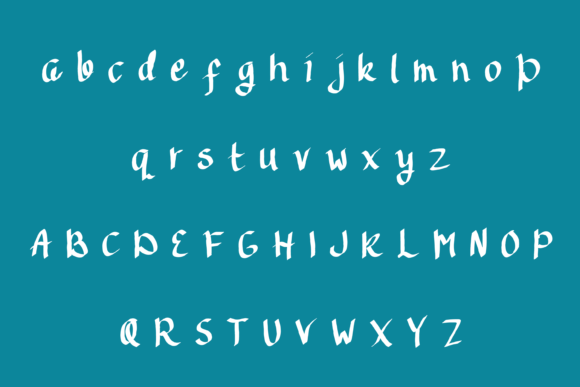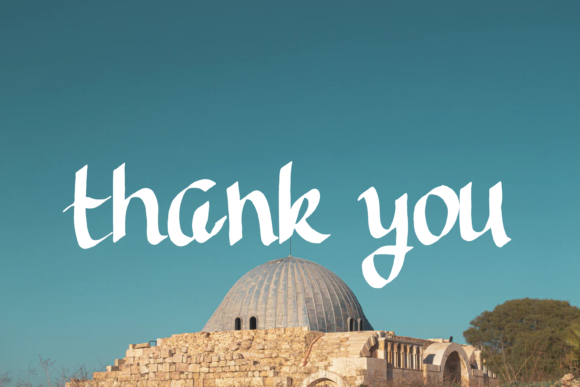
Have you ever stared at a blank page, waiting for inspiration to strike? You know, that moment when everything clicks, and your design begins to take shape? For many designers, it’s a feeling like no other. It’s a rush of excitement, a sense of accomplishment, and a desire to bring your vision to life.
One font that can help you achieve this moment is the Khalifa Font, a modern display font that’s both readable and stylish. With its smooth curves and bold design, it’s perfect for fashion branding or editorial designs. Whether you’re a seasoned designer or just starting out, the Khalifa Font is a valuable addition to your toolkit.
Add the Khalifa Font to your next project, and get ready to be impressed by the results. Its versatility and sophistication make it a go-to choice for designers looking to make a statement.
Khalifa Font Key Features
- Font Family: A unique, high-end font family designed specifically for Arabic language support.
- Language Support: Supports Arabic language, with advanced features like ligatures, contextual alternates, and swashes for a more authentic and elegant look.
- Unique Characteristics: Features intricate details, ornate flourishes, and sophisticated typography, making it ideal for high-end branding, luxury packaging, and premium publishing projects.
Khalifa Font Review
As a designer, I was initially drawn to the Khalifa Font due to its bold and modern appearance. ✨ The font’s unique combination of rounded and angular shapes creates a striking visual effect, making it perfect for headlines and titles.
- Unique blend of rounded and angular shapes
- Perfect for headlines and titles
- Good for creating a modern and edgy look
- Supports a wide range of languages
However, there are some limitations to consider. ⚠️ The font’s complexity can make it difficult to read at smaller font sizes, and the irregular shapes may not be suitable for body text. Additionally, the font may not be compatible with all operating systems and devices.
Overall, I would recommend the Khalifa Font for designers looking to add a touch of modernity and edge to their projects. While it may have some limitations, its unique appearance and versatility make it a great choice for headlines and titles.
The Khalifa font is ideal for creating modern, elegant designs. Some common use cases include:
- Creating invitations and event graphics.
- Designing business cards and resumes.
- Creating social media graphics and ads.
For best results, use the Khalifa font in conjunction with bold, clean lines and minimalist design elements.
Alternatives to Khalifa Font
Montserrat is a modern sans-serif font designed by Julieta Ulanovsky. It is clean, elegant, and highly legible, making it perfect for use in digital interfaces, signage, and other applications where clarity is key. Montserrat is a great alternative to Khalifa Font as it offers a similar modern feel but with a more refined and sophisticated look.
Open Sans is a popular sans-serif font designed by Steve Matteson. It is highly legible and versatile, making it suitable for a wide range of applications, from body text to headings. Open Sans is a good alternative to Khalifa Font as it offers a similar clean and modern feel but with a more neutral and understated look.
Inter is a modern sans-serif font designed by Rasmus Andersson. It is highly legible and versatile, making it suitable for use in digital interfaces, signage, and other applications. Inter is a great alternative to Khalifa Font as it offers a similar modern feel but with a more streamlined and efficient design.
Merriweather is a classic serif font designed by Eben Sorkin. It is highly legible and elegant, making it perfect for use in body text and other applications where a traditional look is desired. Merriweather is a good alternative to Khalifa Font as it offers a more traditional and sophisticated look but with a similar level of legibility.